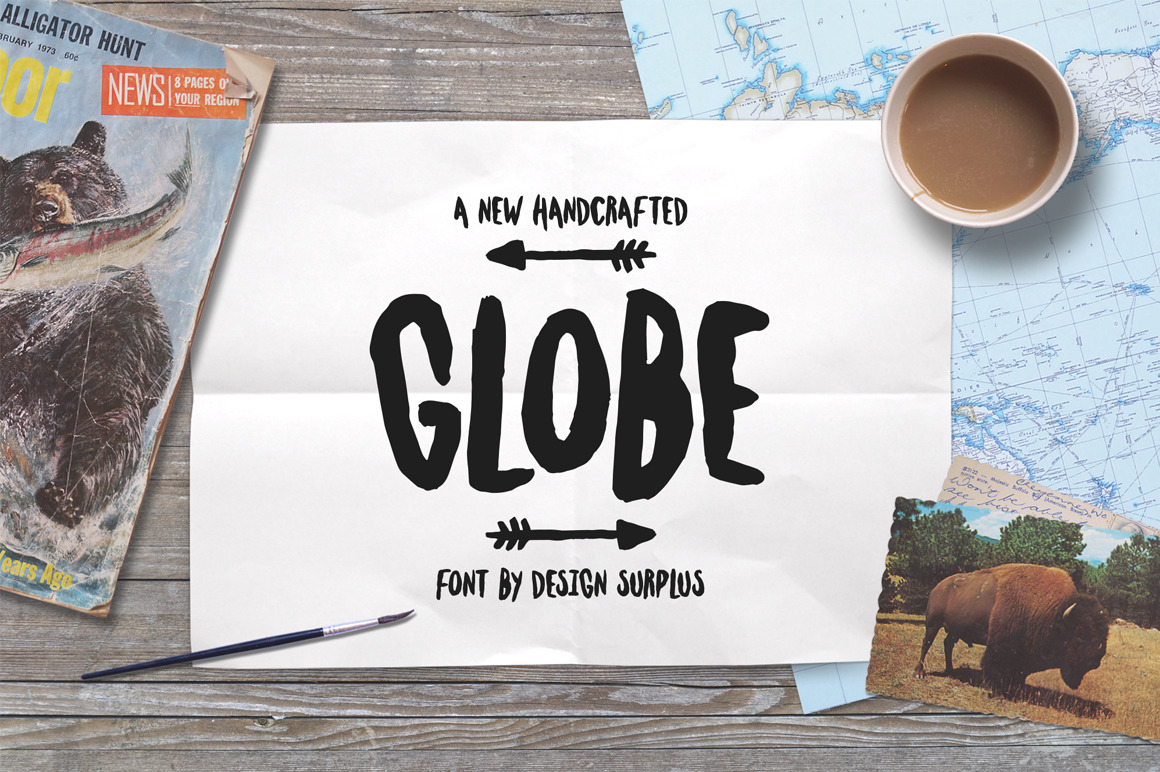
Globe Font
Globe's a sturdy yet little erratic brush font created as part of a new range of unique brush fonts from Design Surplus. The imperfectly brushed letters hug tightly to each other and give any piece of artwork a real hand crafted unique feel.
GLOBE FEATURES
Globe is a collection of hand painted uneven, imperfect letters. Thats its charm right? An uppercase font with 4 different length arrows (hit lower keys a, b, c, d, e, f, g, h) that adds character to artwork.
GLOBE USES
See the above images. Globe looks great on anything from hand lettered quotes, apparel and logo designs.